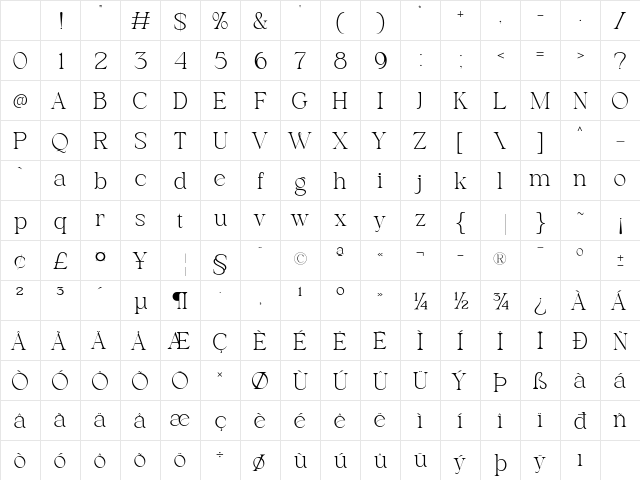
Complete Henotica Regular glyph index. Displaying only characters natively supported by Henotica Regular font.
Henotica is a composed and adaptable typeface that performs quietly and consistently across a wide range of design contexts.